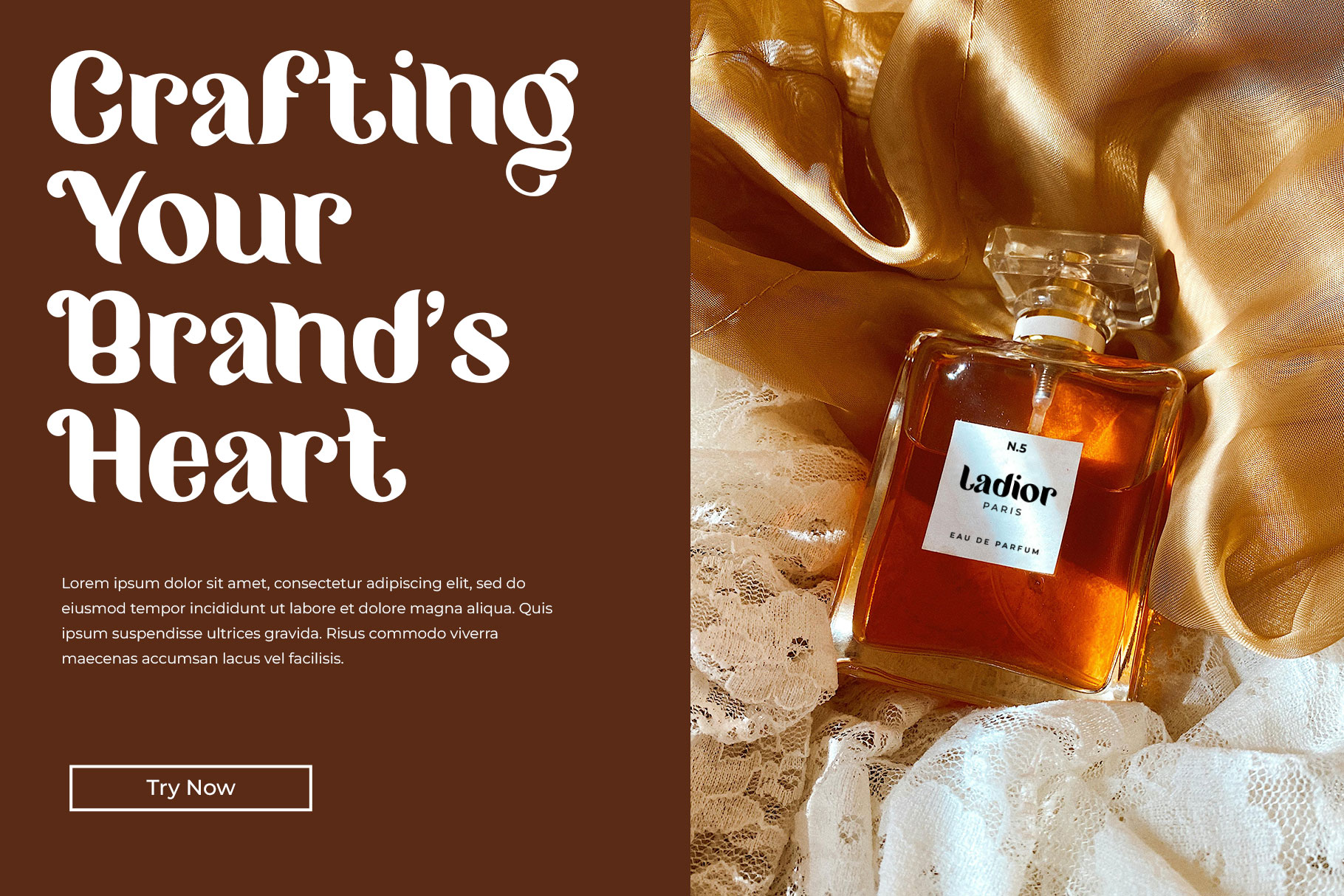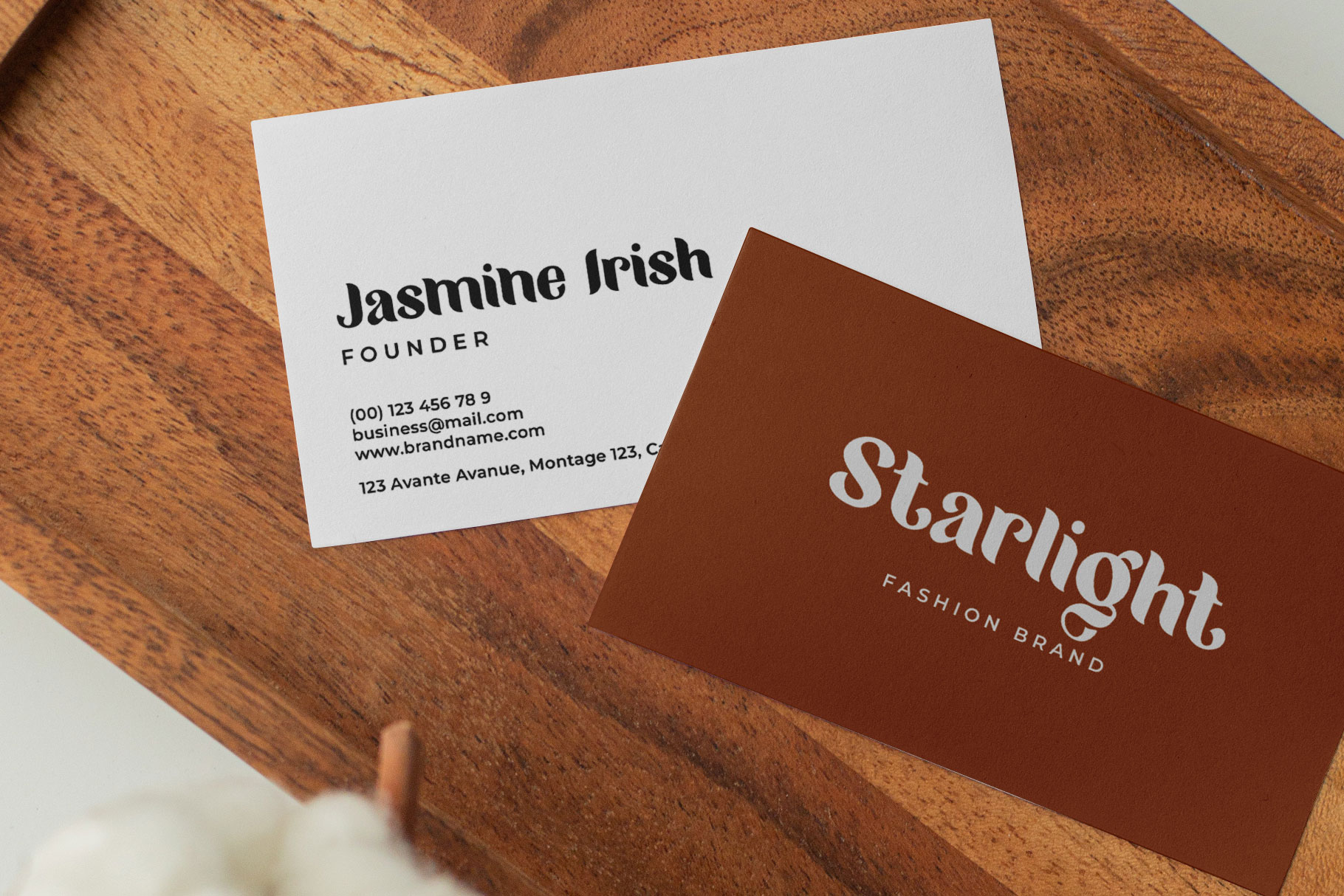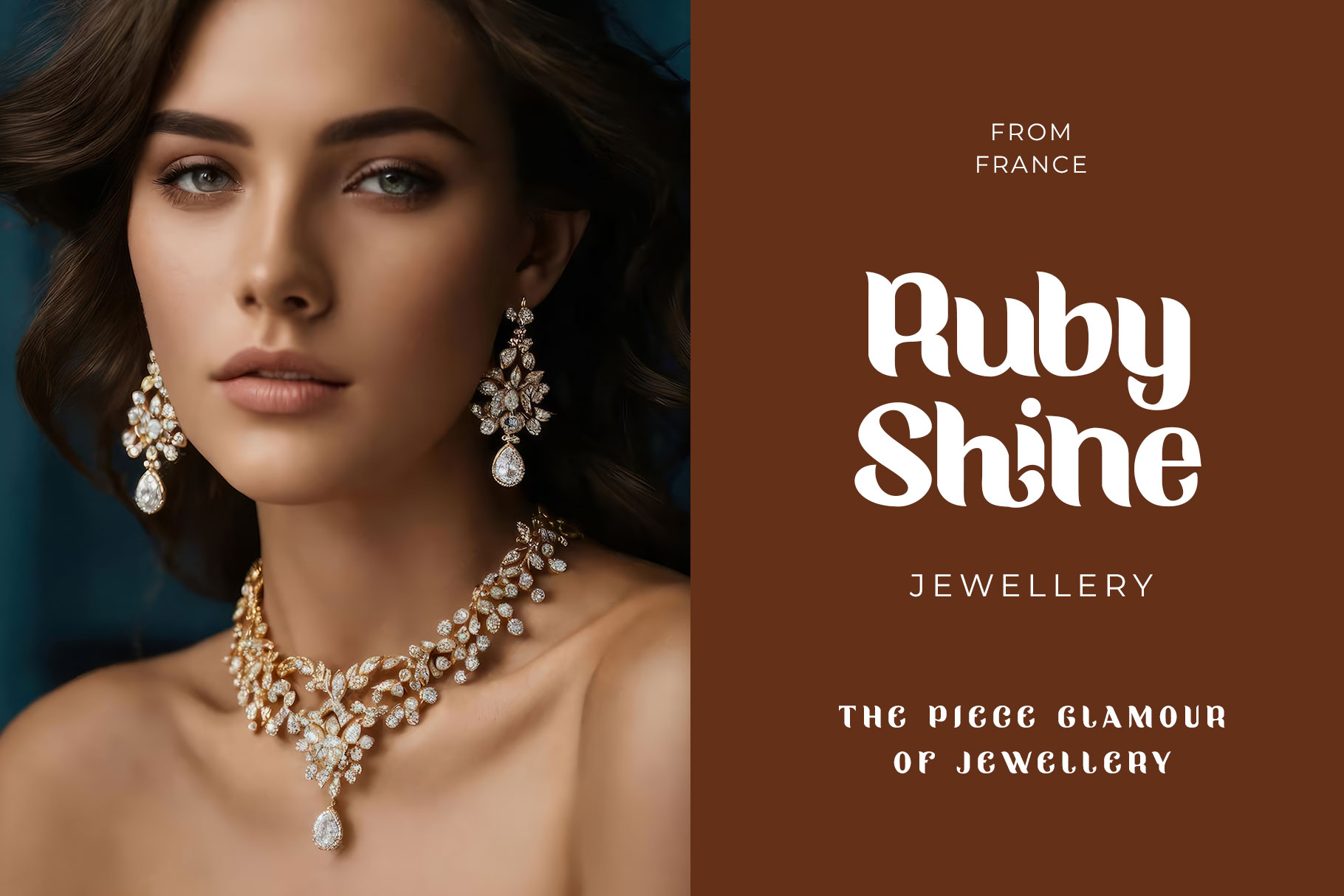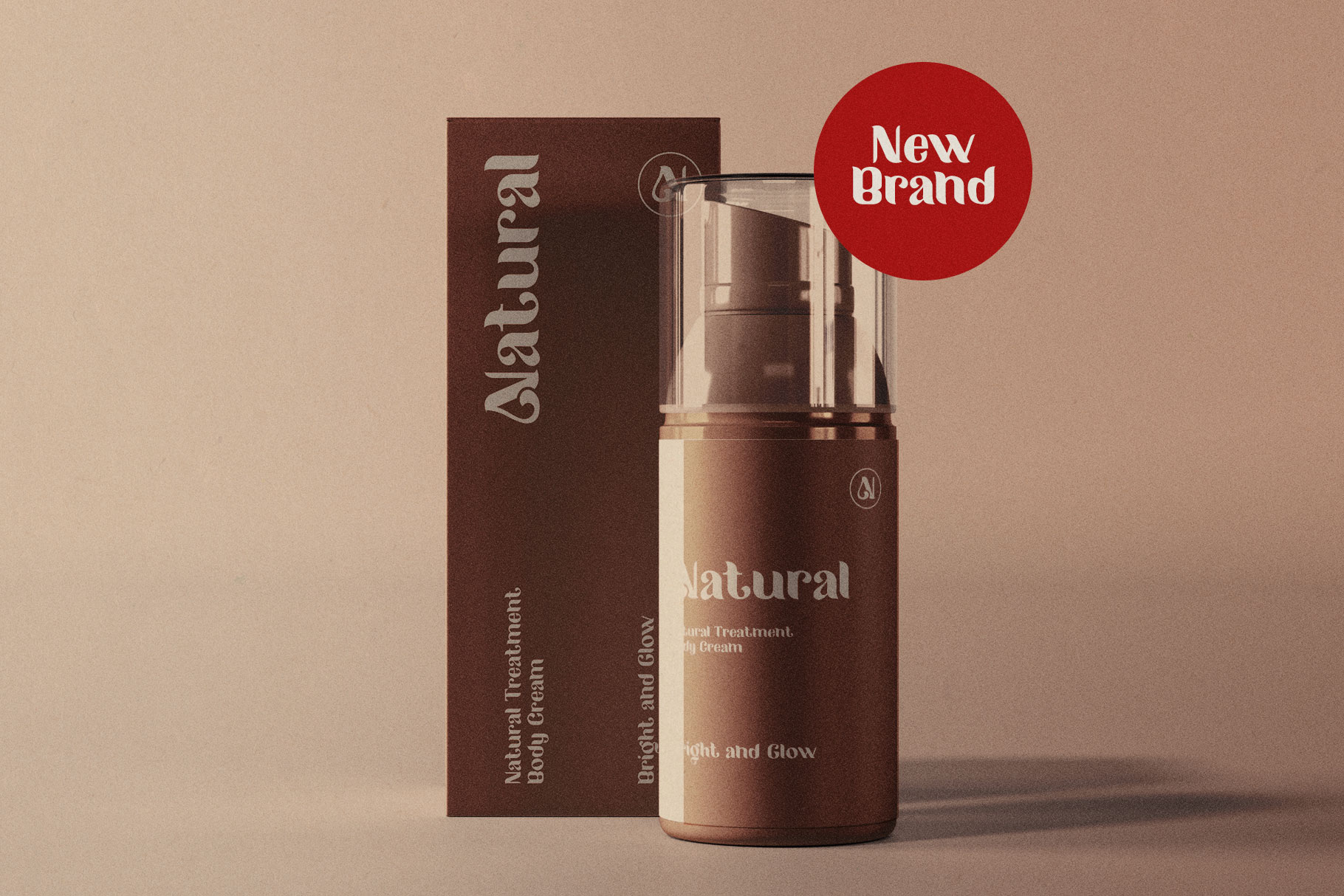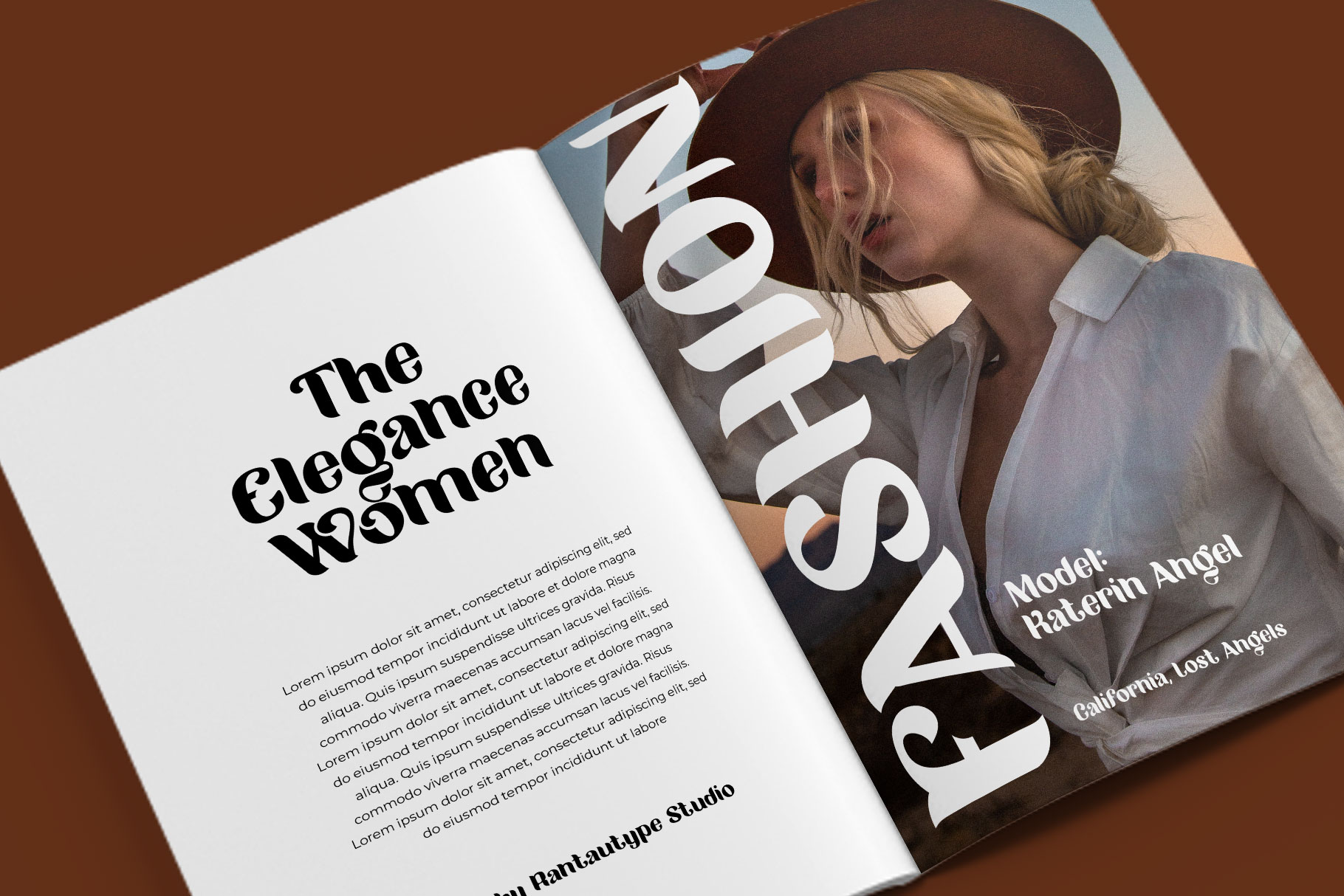
Migano Classy Bold Font
Migano is modern contrast condensed display with bold stroke and modern character. Migano bring elegance and classy into your design make it stand out!
Migano is a perfect choice for any creative endeavor, chic, lifestyle design such as logos, title, watermark on photography, cover, branding, display and magazine, wedding event, corporate brand, quotes, album cover, business card, business project, company branding and more project with handwritten taste.